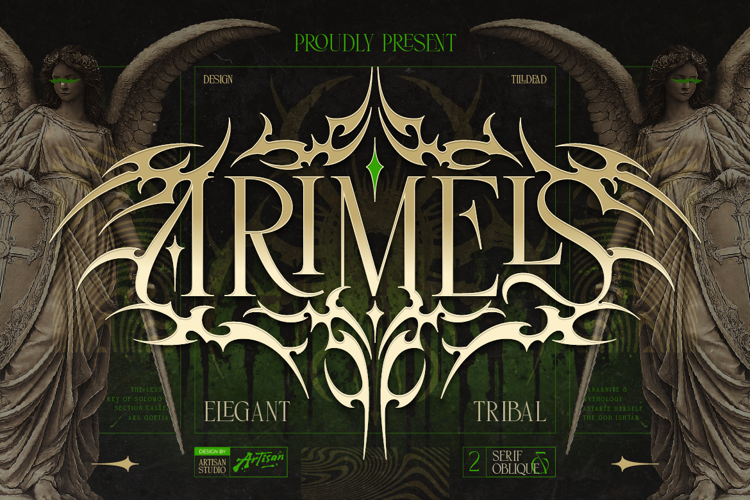
Arimels Font
Arimels is an elegant serif typeface with bold tribal ornamental details. The letterforms combine classic serif structure with sharp, thorn-like flourishes that extend from the strokes, giving each letter a striking, decorative silhouette — perfect for designs that need a strong, dramatic presence.
Perfect For:
- Logo & branding design
- Band merch, album covers, and streetwear apparel
- Tattoo studio branding
- Fantasy, mythology, and gaming projects
- Poster, movie title, and packaging design
- Wedding invitations with a dark, dramatic twist